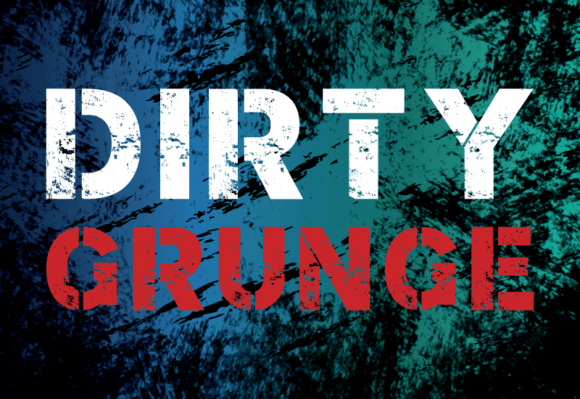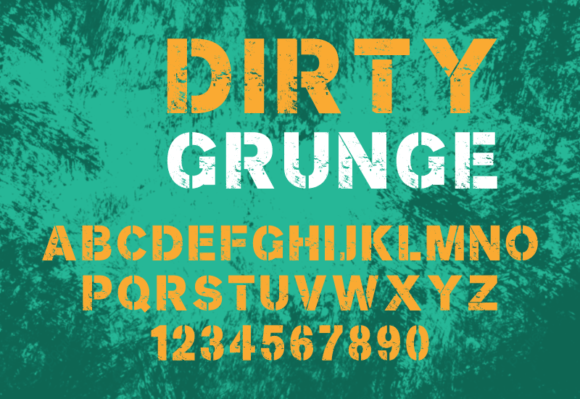
Unleash Your Creativity with Dirty Grunge Font
Are you tired of using the same old fonts in your designs? Do you want to add a touch of bold individuality to your projects? Look no further than Dirty Grunge, an exceptionally distinctive sans-serif font that’s sure to make a statement. With its audacious and raw aesthetic, Dirty Grunge is the perfect choice for designers and crafters who want to add an edge to their work.
The Unique Characteristics of Dirty Grunge
Dirty Grunge is more than just a font – it’s an attitude. Its rugged lines and worn-in texture evoke a sense of tenacity and revolt, making it the perfect choice for projects that require a bold and daring style. The font’s sans-serif design gives it a clean and modern look, while its distressed texture adds a layer of grit and edginess. Whether you’re designing a poster, album cover, or streetwear branding, Dirty Grunge is sure to turn heads.
What Makes Dirty Grunge Stand Out
So, what sets Dirty Grunge apart from other fonts? Here are just a few of its standout features:
- Audacious and raw aesthetic: Dirty Grunge is not for the faint of heart. Its bold and daring design is sure to make a statement.
- Rugged lines and worn-in texture: The font’s distressed texture gives it a worn and weathered look that’s perfect for edgy designs.
- Tenacious and rebellious vibe: Dirty Grunge is all about attitude. It’s the perfect choice for designers who want to add a touch of bold individuality to their work.
- Versatile design: Dirty Grunge is perfect for a wide range of projects, from posters and album covers to streetwear branding and more.
How to Use Dirty Grunge in Your Designs
Dirty Grunge is an incredibly versatile font that can be used in a wide range of design projects. Here are just a few ideas to get you started:
- Posters and flyers: Add a bold and daring touch to your posters and flyers with Dirty Grunge.
- Album covers: Give your music project a bold and edgy look with Dirty Grunge.
- Streetwear branding: Add a touch of bold individuality to your streetwear branding with Dirty Grunge.
- Logos and wordmarks: Use Dirty Grunge to create a bold and memorable logo or wordmark.
Tips for Getting the Most Out of Dirty Grunge
Here are a few tips for getting the most out of Dirty Grunge:
- Experiment with different colors: Dirty Grunge looks great in bold and bright colors. Experiment with different colors to find the perfect look for your design.
- Play with texture and patterns: Add an extra layer of depth to your design by combining Dirty Grunge with texture and patterns.
- Use it sparingly: While Dirty Grunge is a bold and daring font, it can be overwhelming if used too much. Use it sparingly to add a touch of edginess to your design.
Dirty Grunge is an exceptionally distinctive sans-serif font that’s sure to add a touch of bold individuality to your designs. With its audacious and raw aesthetic, rugged lines, and worn-in texture, Dirty Grunge is the perfect choice for designers and crafters who want to make a statement. Whether you’re designing a poster, album cover, or streetwear branding, Dirty Grunge is sure to turn heads. So why settle for a boring and generic font when you can unleash your creativity with Dirty Grunge?